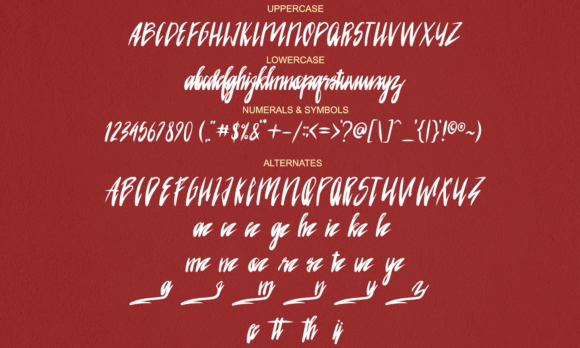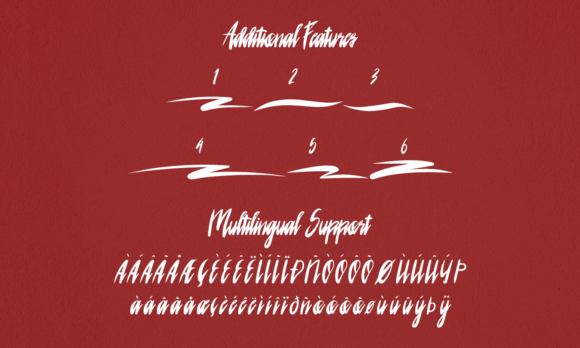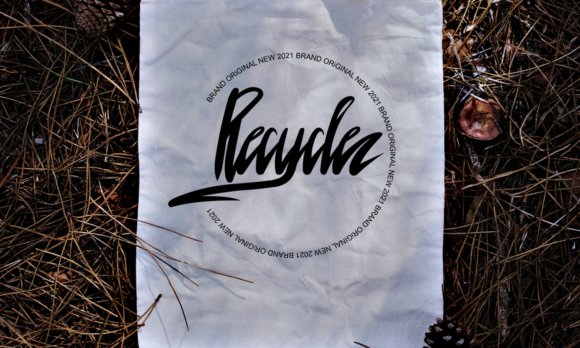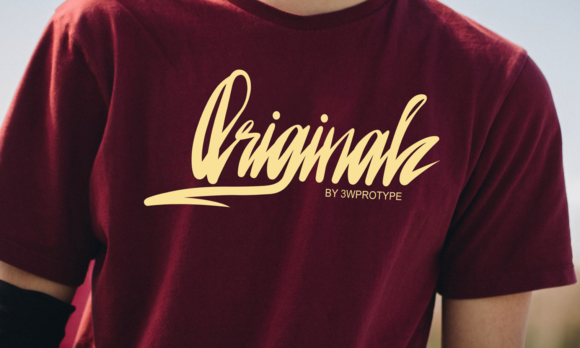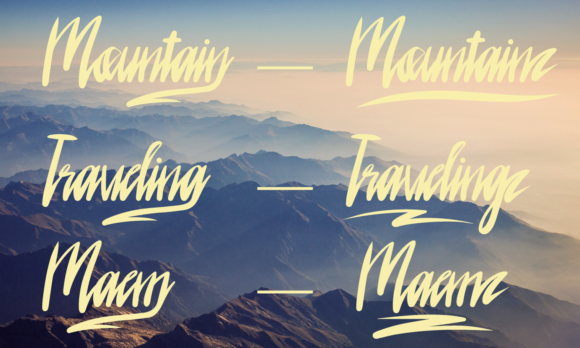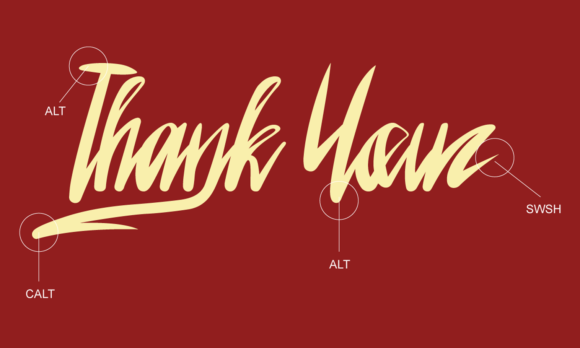
Unlock the Power of Handwritten Elegance
Have you ever stared at a blank canvas, trying to come up with the perfect design, only to be struck by the realization that it needs something truly unique? That’s when the magic happens – you start experimenting with different fonts, searching for the perfect combination of style and flair. For designers like you, the search is over with the introduction of the Kingdom Font, a regular handwritten font designed to bring your creative vision to life.
Whether you’re crafting a logo design, branding project, or advertising campaign, the Kingdom Font is your go-to partner for adding a touch of personality to your work. With its modern twist and swashes, this typeface is the perfect blend of style and functionality. As a PUA-encoded font, you can easily access all of its glyphs and swashes, making it a valuable addition to your design toolkit.
Kingdom Font Key Features
- Font Family: Kingdom Font is a unique, hand-drawn font family designed to evoke a sense of elegance and sophistication. It is available in multiple weights and styles.
- Character Set: The Kingdom Font family includes a wide range of characters, including Latin, Cyrillic, and Greek alphabets, as well as punctuation and symbols.
- Unique Characteristics: The Kingdom Font family features intricate details and ornate flourishes, making it a standout choice for designers and typographers looking to add a touch of sophistication to their work.
Kingdom Font Review
I recently had the chance to work with Kingdom Font, and I must say it’s an interesting choice for designers.
- The Kingdom Font has a unique, medieval-inspired aesthetic that can add a touch of elegance to any design.
- The font is highly customizable, allowing users to adjust the weight, size, and spacing to suit their needs.
- The font supports a wide range of languages, making it a great choice for international projects.
- The font can be quite ornate, which may make it difficult to read for some users, especially at smaller font sizes.
- The font may not be suitable for digital use, as it can be quite pixelated and may not display well on all devices.
- The font’s complexity can make it difficult to pair with other fonts, which may limit its use in certain design projects.
Overall, Kingdom Font is a solid choice for designers who are looking to add a touch of sophistication to their designs. While it may have some limitations, it’s a great option for print projects or designs where a unique aesthetic is a must.
The Kingdom Font is a versatile font that can be used for a variety of purposes, including:
- Editorials and articles
Some tips for getting the most out of the Kingdom Font include:
- Using the font in conjunction with other ornate or cursive fonts
- Experimenting with different font sizes and styles